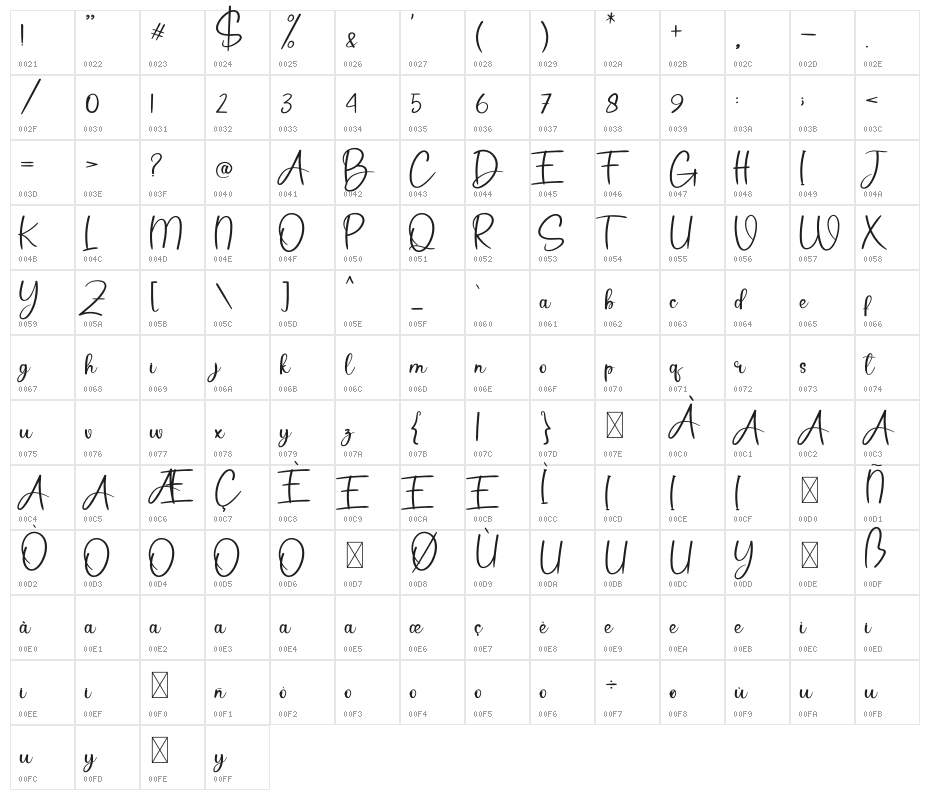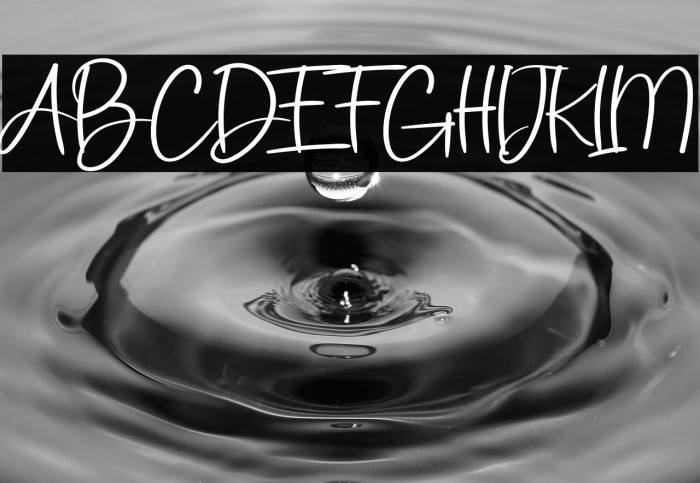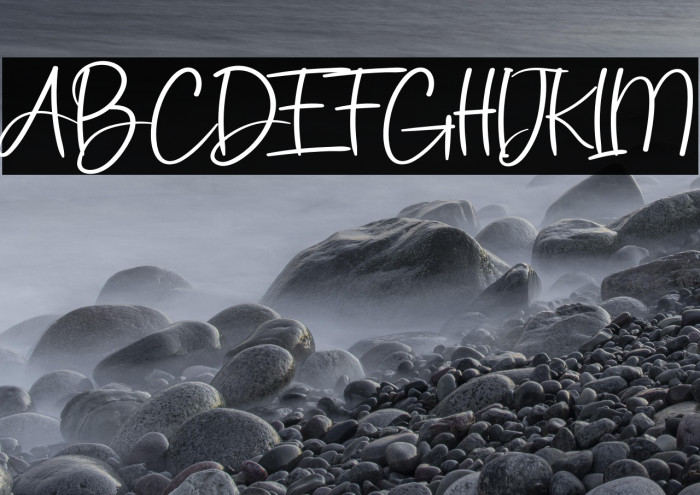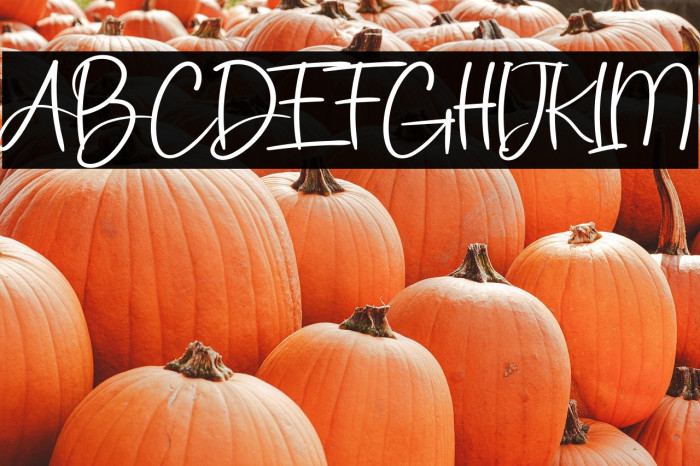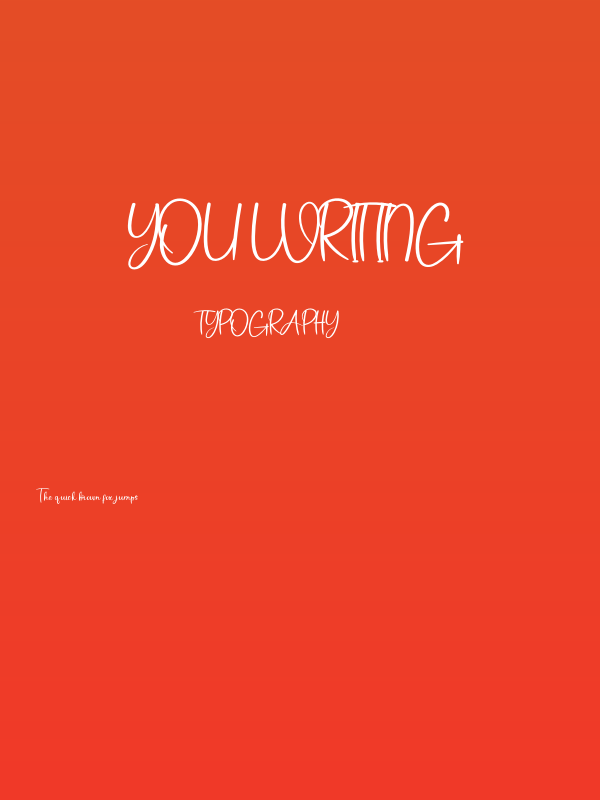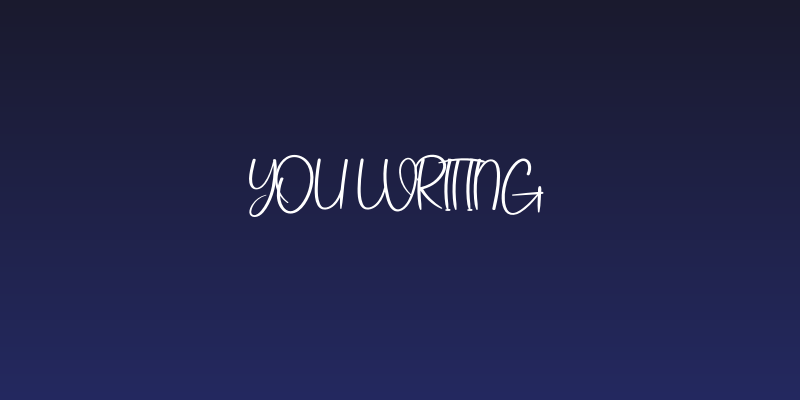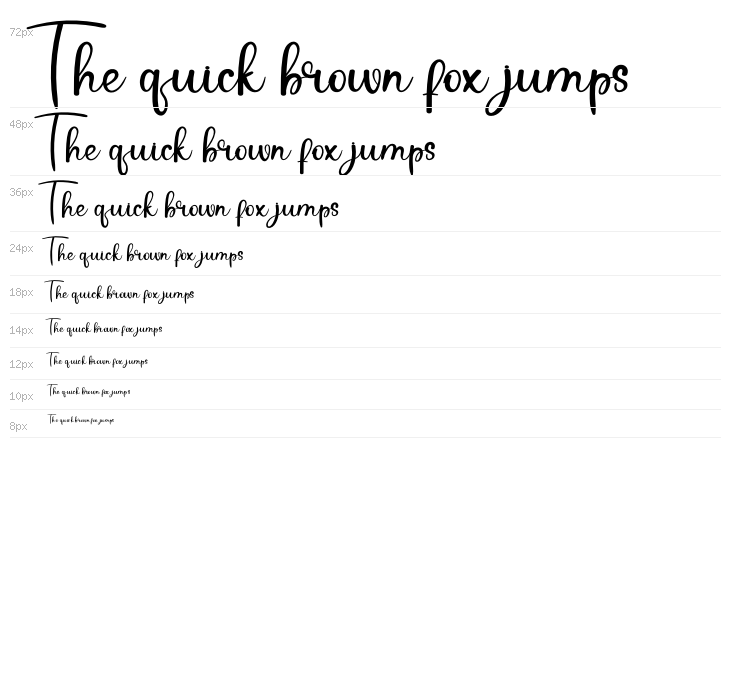
You Writing Font
You Writing Description
A playful, handwritten script font with a casual and flowing style, featuring smooth curves and a slightly irregular baseline.
| Overall Style | Casual, Playful |
| Use Case | Logos, Invitations, Personal projects |
| Proposed Projects | Greeting cards, invitations, personal branding. |